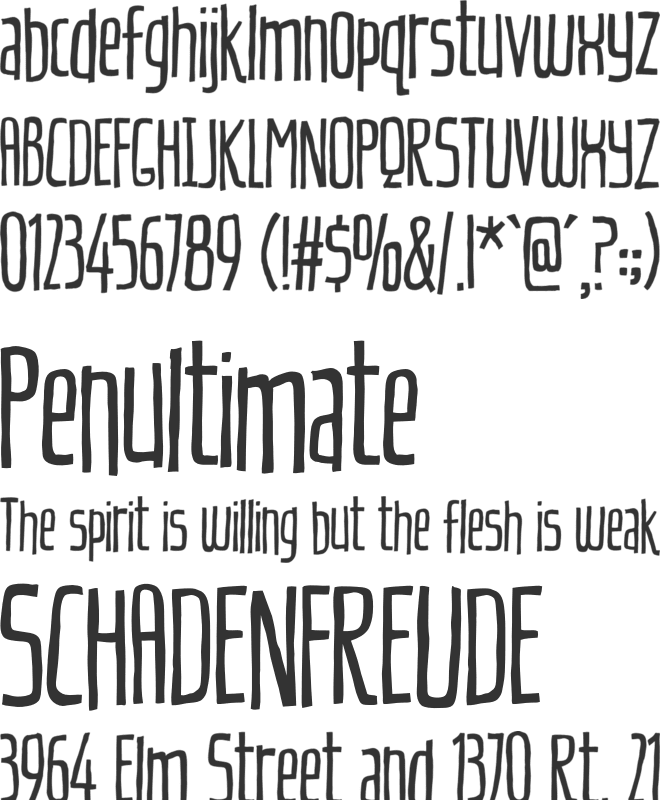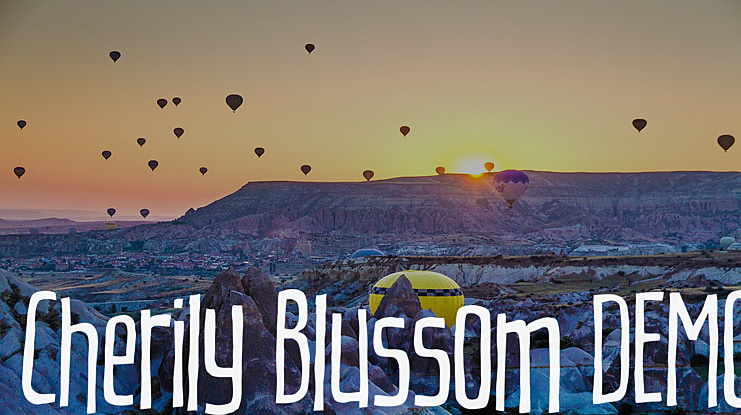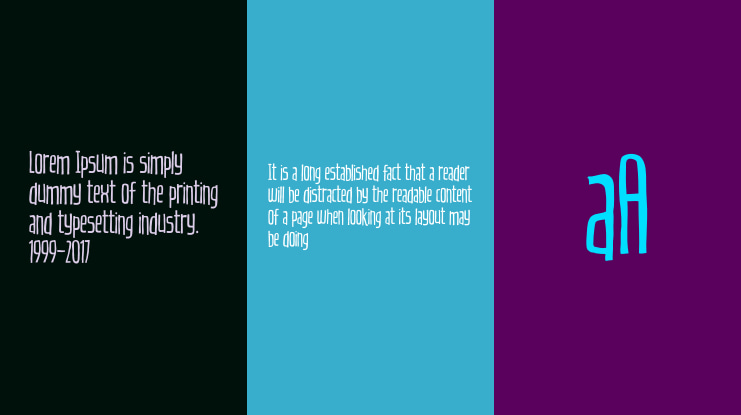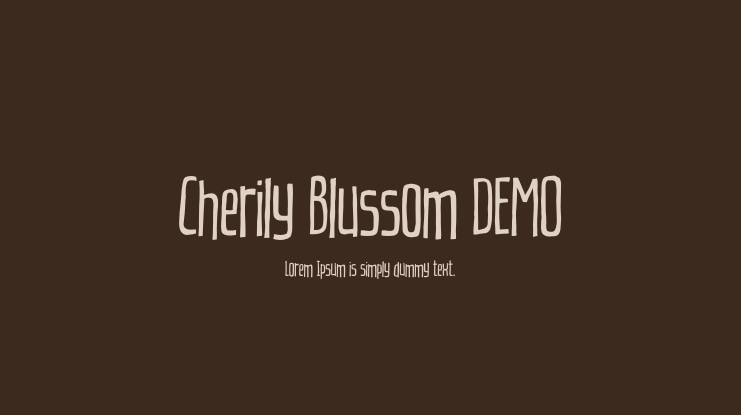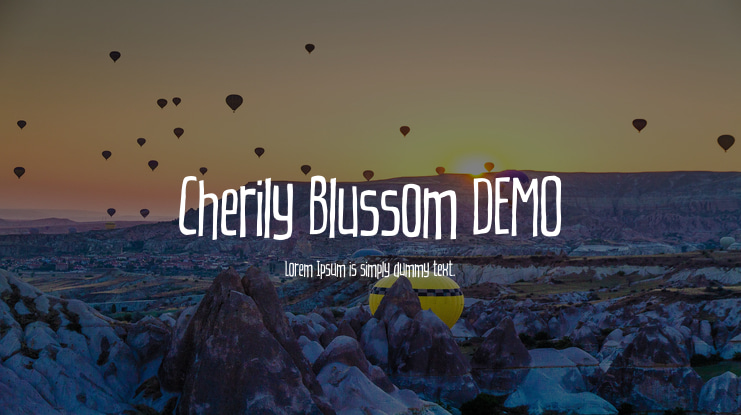
Cherily Blussom DEMO Font
Cherily Blussom was made with an inky pen, and little was done to correct the blurry edges. Thats why Cherry Blussom stands out in such an authentic way! The shareware version comes with both ligatures and alternates - combine them and spice up your text!